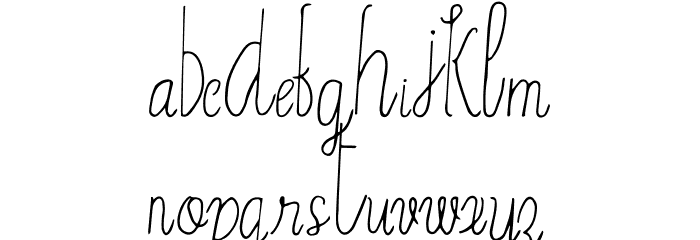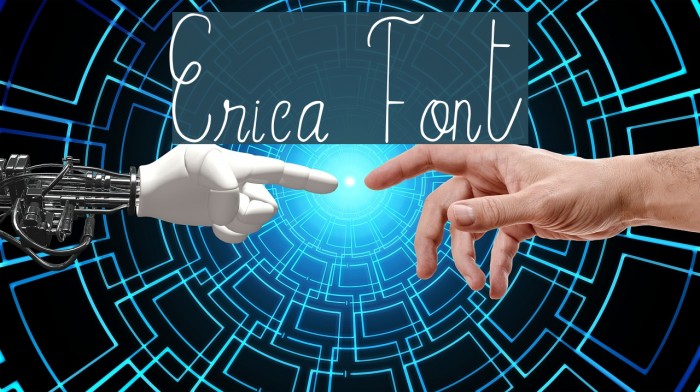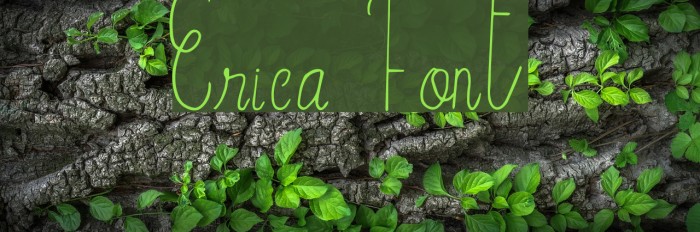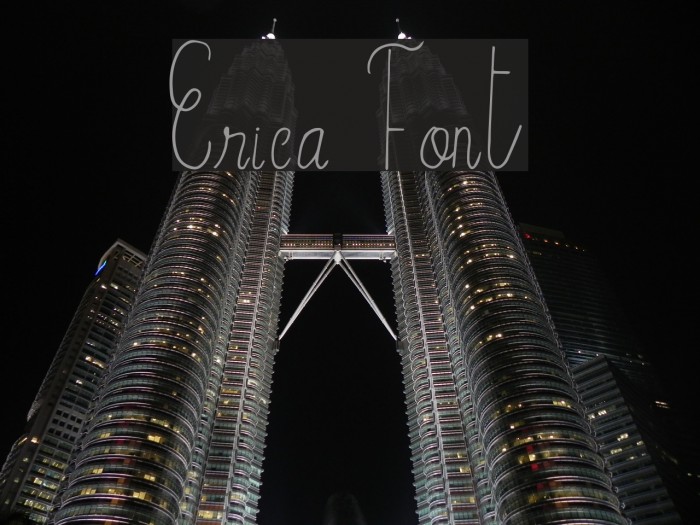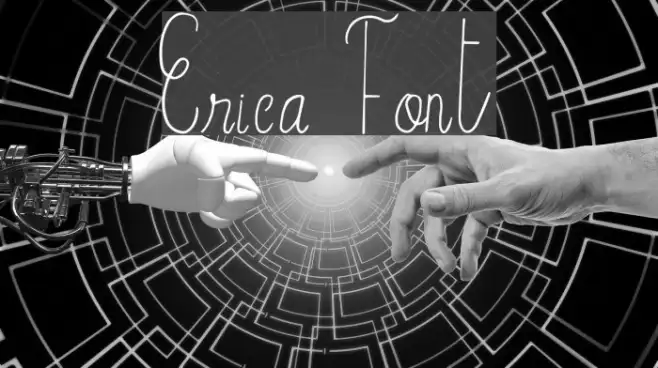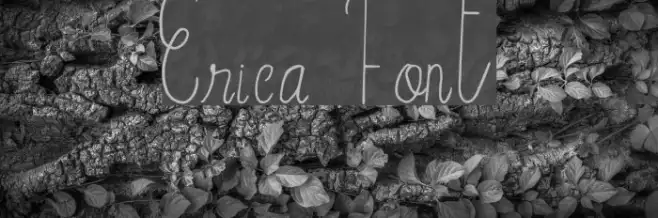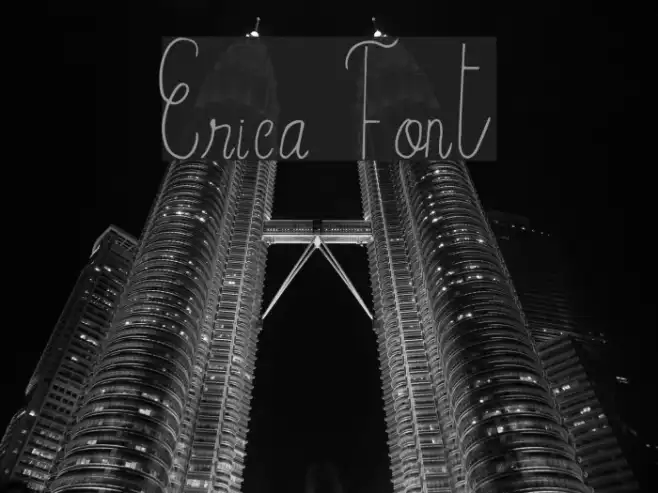
Erica Font
This font features a whimsical and playful design with a handwritten style. The characters are elongated and slightly irregular, giving it a unique, artistic flair. The uppercase letters are tall and slender, while the lowercase letters maintain a consistent flow with subtle loops and curves. Numbers and special characters follow the same playful aesthetic, making it suitable for creative and informal projects. The overall look is light and airy, with a sense of movement and personality.
A whimsical, handwritten font with elongated, playful characters.
- Proposed Projects: Ideal for greeting cards, invitations, children's books, and creative branding projects.
- Use Case: Logos, Invitations, Greeting Cards